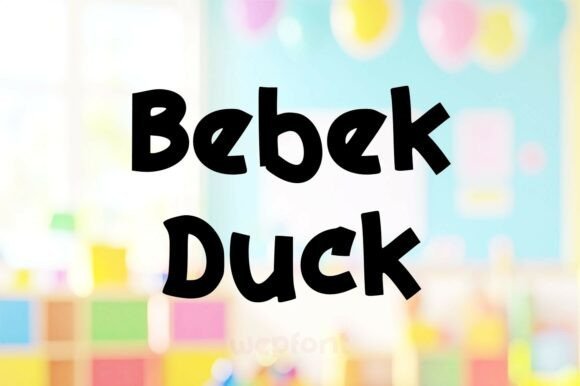
When Design Meets Joy: The Bebek Duck Font Takes Center Stage
Do you remember the thrill of creating your own storybooks as a child? The feeling of bringing characters to life with colorful drawings and playful typography? For many designers, that sense of wonder and creativity never fades. In fact, it’s a driving force behind their work. Whether you’re crafting a children’s party invitation or designing educational materials, the right font can make all the difference.
Enter the Bebek Duck Font, a charming display font that embodies the spirit of childhood adventure and fun. Its plump, rounded letterforms and slight bounce create a whimsical feel that’s perfect for designs aimed at a young audience. As a designer, you’ll appreciate the Bebek Duck Font’s versatility and its ability to bring a lighthearted, cheerful aesthetic to any project.
Bebek Duck Font Key Features
- Unique Characteristic: This font features a playful and whimsical design, making it perfect for children’s books, educational materials, and creative projects
Bebek Duck Font Review
Overall, I’m quite impressed with Bebek Duck Font, but it’s not without its quirks.
The Bebek Duck Font has a lovely, whimsical feel to it. The letterforms are playful and easy to read, making it perfect for children’s books, nursery decor, and other projects that need a touch of cuteness.
- Highly customizable: The font offers a range of style and size options, making it easy to tailor to your specific needs.
- Fun and expressive: The Bebek Duck Font is perfect for projects that require a lighthearted and engaging tone.
While the Bebek Duck Font is a great choice for many projects, it does have some limitations:
- Not ideal for body text: Due to its playful nature, the font may be difficult to read in large blocks of text.
- Limited to decorative use: The Bebek Duck Font is best used as an accent or title font, as it can be overwhelming when used extensively.
The Bebek Duck Font is a fun and engaging choice for projects that require a playful touch. While it may not be suitable for all types of projects, it’s perfect for those that need a lighthearted and whimsical feel.
Experiment with different font sizes, colors, and alignments to create visually appealing designs.
Combine the Bebek Duck Font with other fonts to create a unique and playful look.
Use the Bebek Duck Font for titles, headings, and emphasis to add a touch of whimsy to your designs.
The Bebek Duck Font is ideal for:
Children’s books and educational materials
Playful branding and marketing materials
Fun and creative social media posts
Party invitations and decorations
Alternatives to Bebek Duck Font
Bebek Duck Font is a popular font known for its cute and playful style. However, designers may be looking for alternative fonts to achieve a similar or different aesthetic. Here are a few options:
Great Vibes Font is a modern, script font that is perfect for creating a friendly and approachable feel. It is ideal for use in titles, headings, and body text where a more casual tone is desired. Compared to Bebek Duck Font, Great Vibes has a more refined and elegant look, making it suitable for a wider range of design projects.
Alex Brush Font is a beautiful, handwritten font that is great for adding a personal touch to designs. It is ideal for use in titles, headings, and body text where a more creative and expressive tone is desired. Compared to Bebek Duck Font, Alex Brush has a more sophisticated and elegant look, making it suitable for high-end design projects.
3. Ostrich Sans Font
Ostrich Sans Font is a modern, sans-serif font that is perfect for creating a clean and minimalist feel. It is ideal for use in titles, headings, and body text where a more professional tone is desired. Compared to Bebek Duck Font, Ostrich Sans has a more streamlined and modern look, making it suitable for a wide range of design projects.